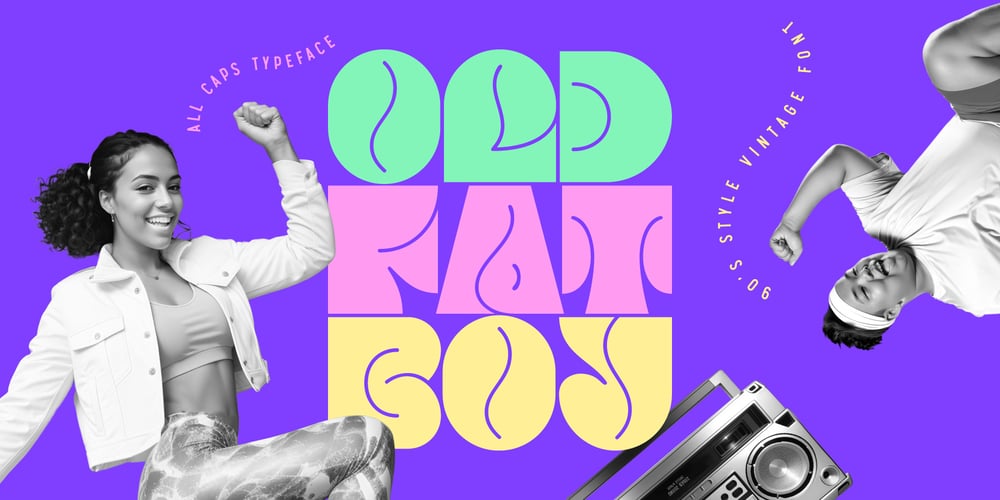
Old Fat Boy
Old Fat Boy font
Old Fat Boy Font Family was designed by Gleb Guralnyk and published by Gleb Guralnyk. Old Fat Boy contains 1 styles and family package options. Hello! Introducing a creative all caps font named Old Fat Boy. It’s a vintage shape smooth typeface with authentique 90’s style look. This font includes lots of multilingual characters (check out a screenshot with available letters and signs).